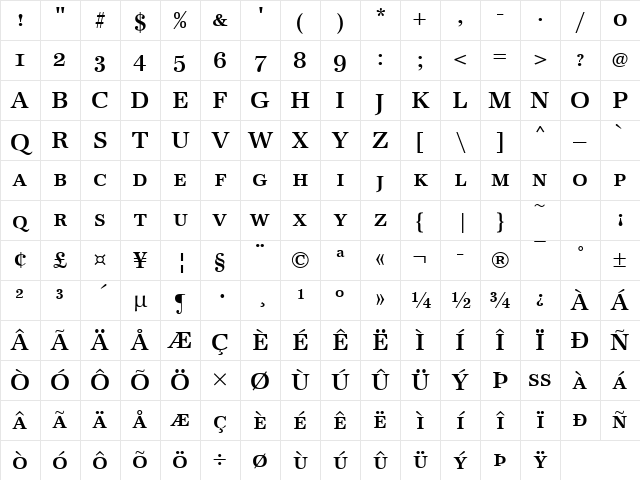
Becker Antiqua Caps Med Regular
Complete Becker Antiqua Caps Med Regular glyph index. Displaying only characters natively supported by Becker Antiqua Caps Med Regular font.
Design Context for Becker Antiqua Caps Med
Becker Antiqua Caps Med is a composed and adaptable typeface that performs quietly and consistently across a wide range of design contexts.